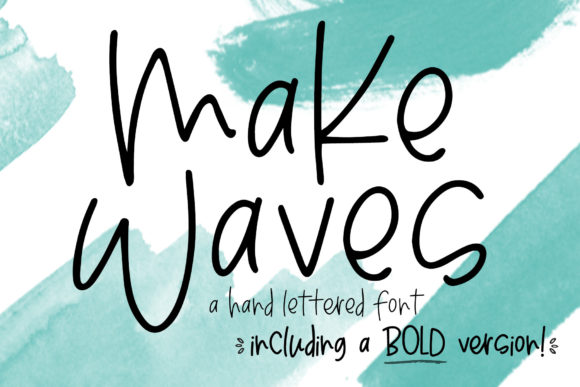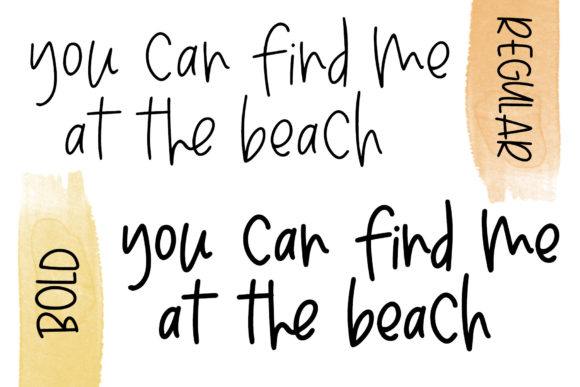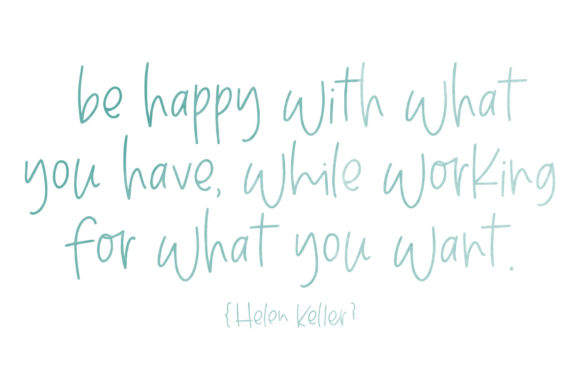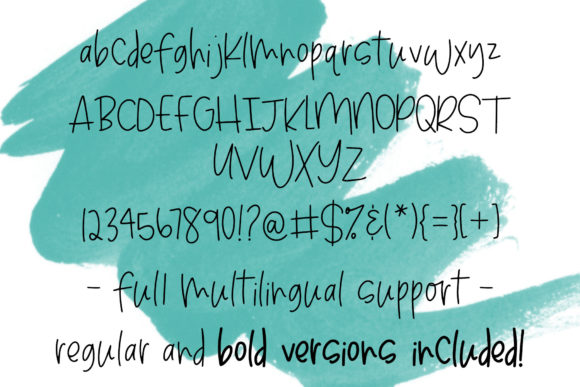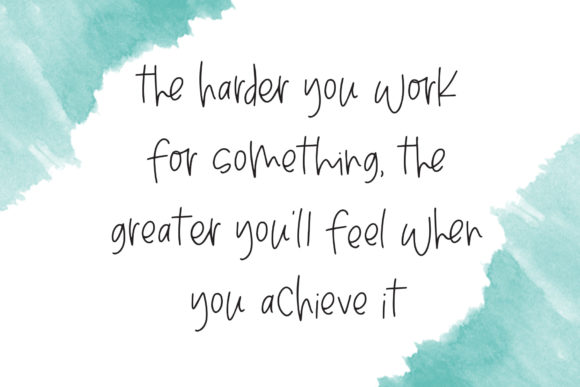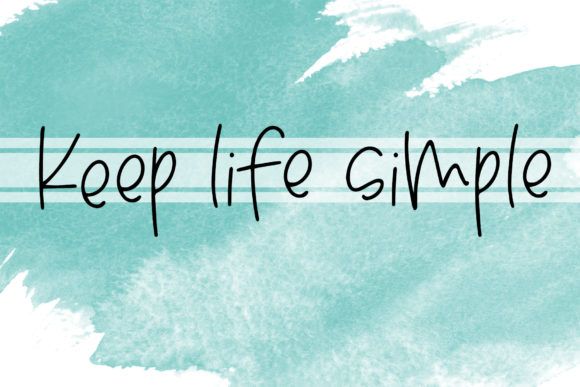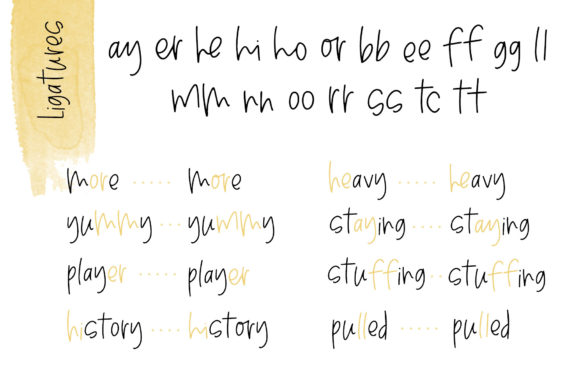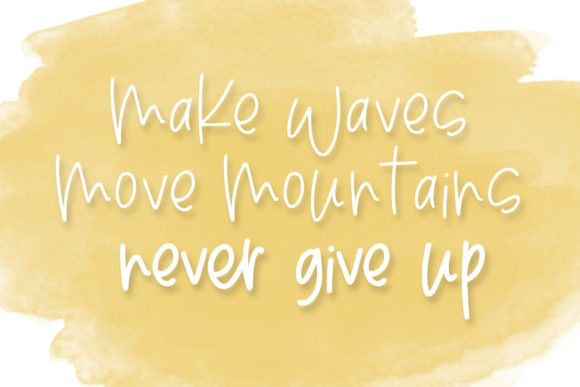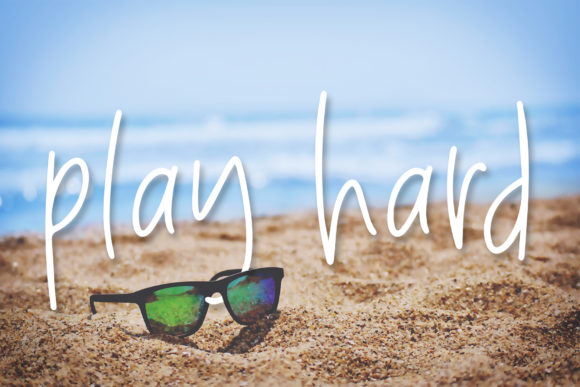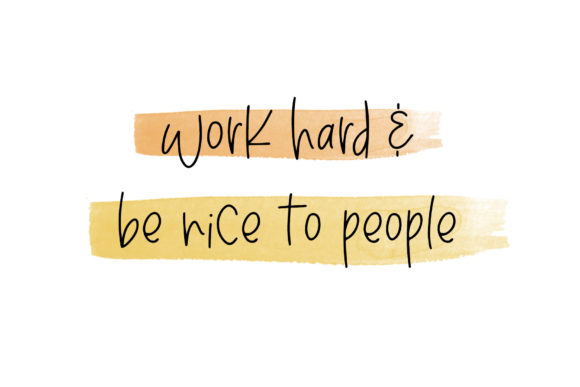
Make Waves Font
About Make Waves Font
Make Waves is a cool and quirky handwritten font. Whimsical and a bit quirky, this font will brighten up each of your designs. Add it confidently to your projects, and you will love the results.